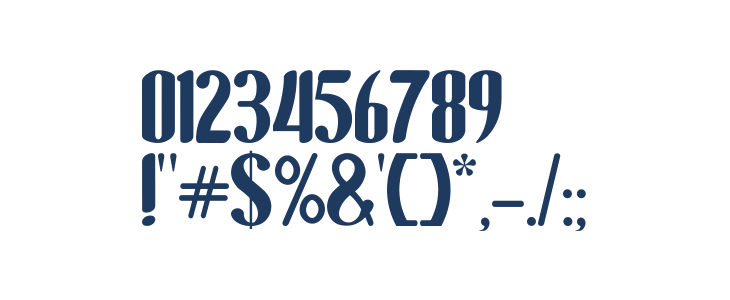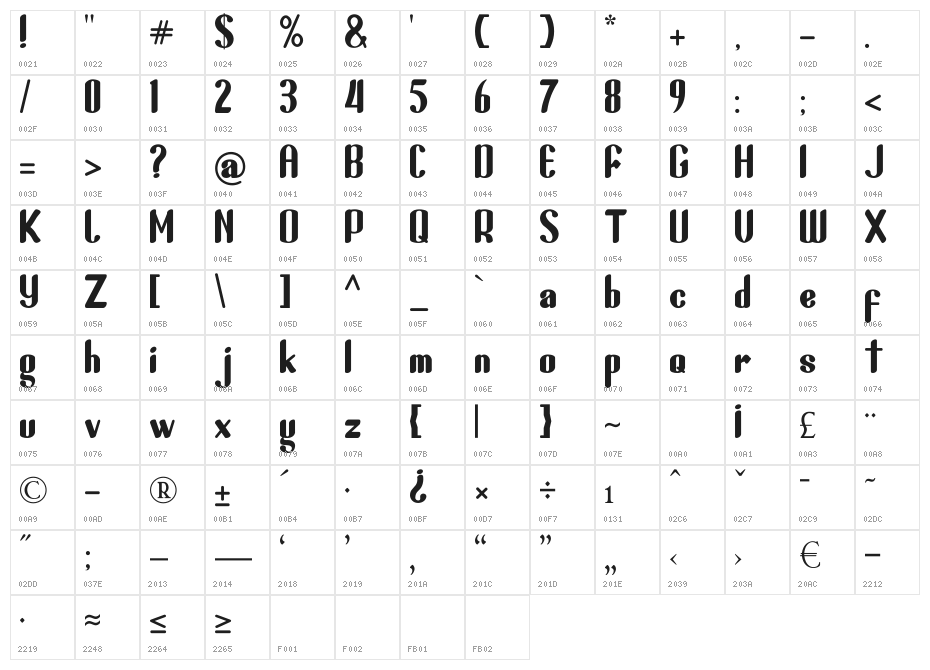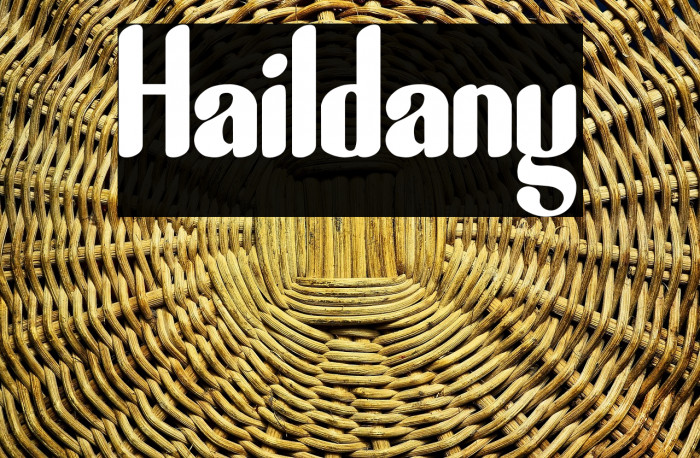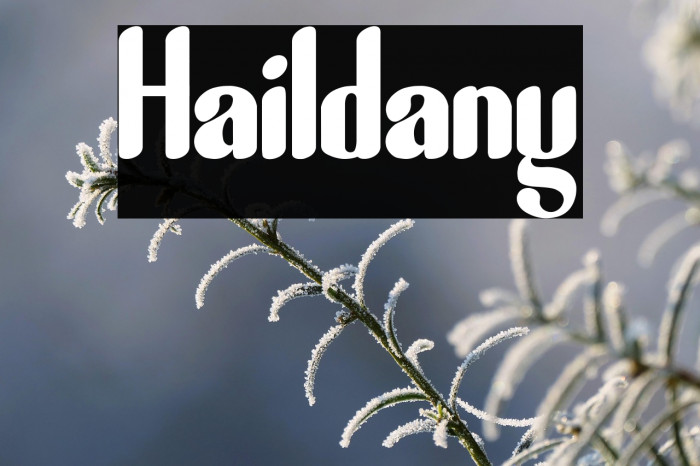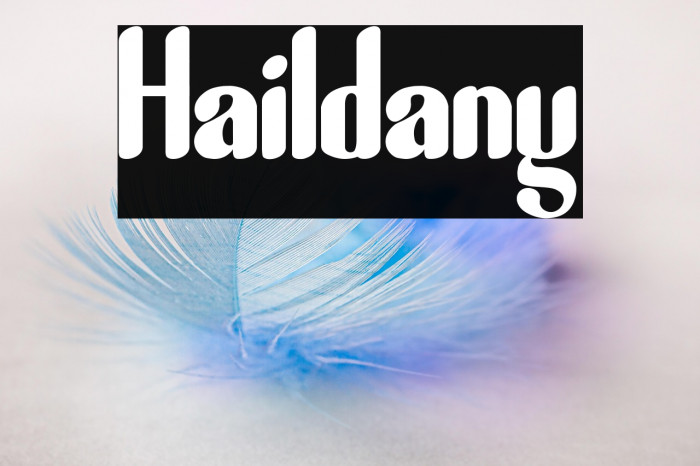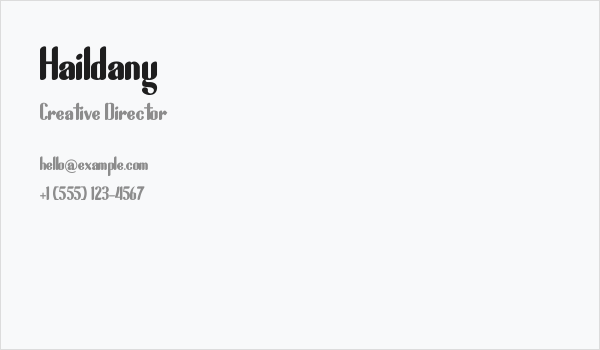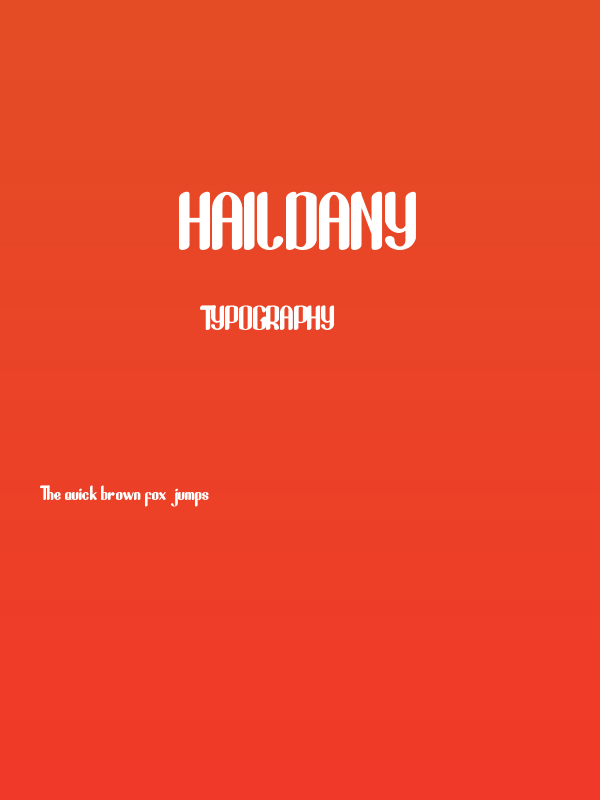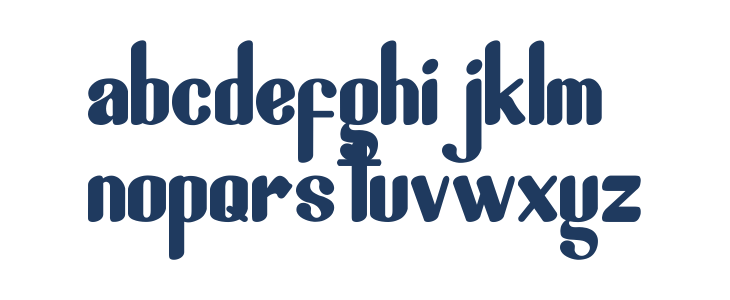
Haildany Font
Haildany Description
This font features a bold and striking design with thick, rounded strokes that create a strong visual impact. The characters are uniquely styled with a blend of geometric and organic shapes, giving it a modern yet playful appearance. The uppercase letters are particularly bold, while the lowercase letters maintain a consistent weight, ensuring readability. The numbers and special characters are designed to match the overall aesthetic, making them suitable for a variety of uses. The font's distinct style makes it ideal for attention-grabbing headlines and creative projects.